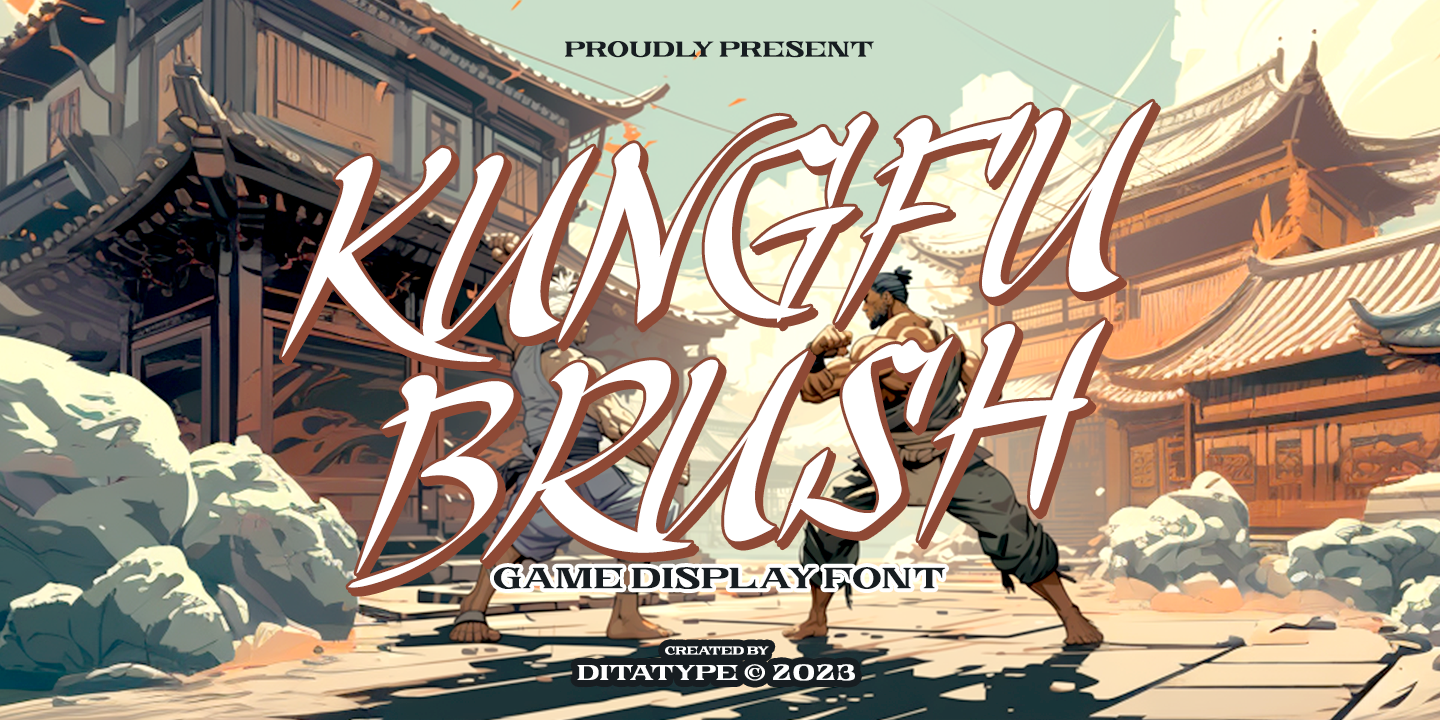
This dynamic typeface is perfect for martial arts schools, Asian restaurants, action movie posters, video game titles, anime projects, traditional calligraphy designs, zen meditation centers, tea house branding, Asian cultural events, martial arts tournaments, spiritual workshops, traditional medicine clinics, Eastern philosophy books, and Oriental-themed packaging. The font's expressive brushstroke design makes it ideal for projects that celebrate Asian culture and martial arts philosophy.
Kungfu Brush Font is exciting because it captures the fluid power and ancient wisdom of traditional Chinese calligraphy through its authentic brushstroke letterforms. The font's organic flow and energetic strokes create a sense of movement and spiritual strength, making it perfect for brands that want to convey discipline, tradition, and inner power. Its handcrafted appearance brings authenticity and cultural depth to modern design projects.
The Kungfu Brush Font family includes various stroke weights: Light Brush, Regular Brush, Heavy Brush, and Extra Heavy variations, each maintaining the authentic hand-painted aesthetic. Special editions feature alternate characters, traditional symbols, and decorative elements that enhance the font's cultural authenticity, providing designers with comprehensive tools for creating immersive Eastern-inspired experiences.
Master the art of impactful design with Kungfu Brush Font Free Download – a typeface that embodies ancient wisdom and modern creativity. Whether you're developing martial arts branding, Asian cuisine marketing, or cultural event materials, this font delivers the authentic brushstroke beauty and spiritual energy your projects need while maintaining exceptional readability and timeless aesthetic appeal.